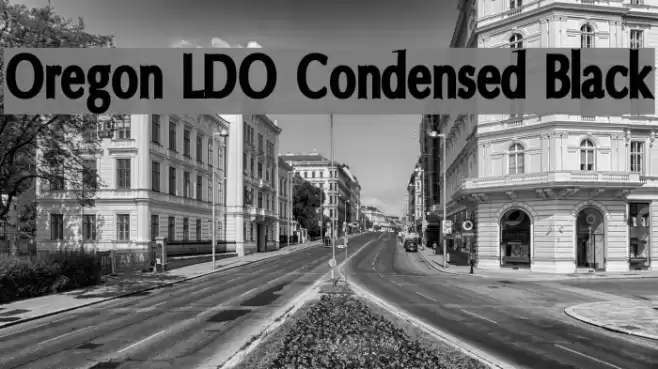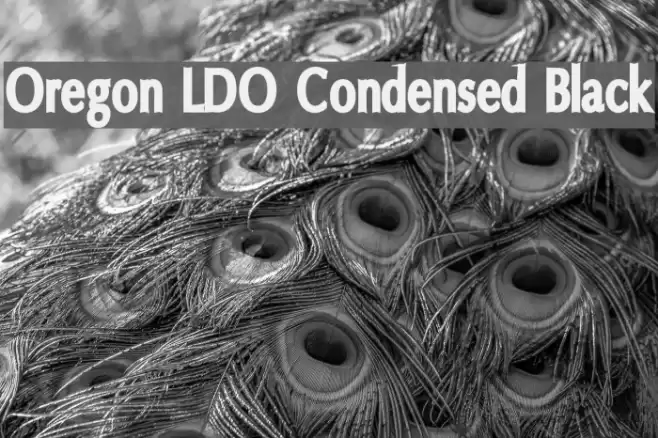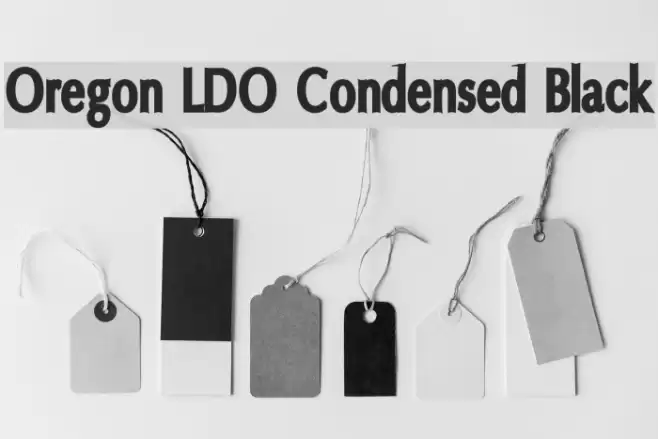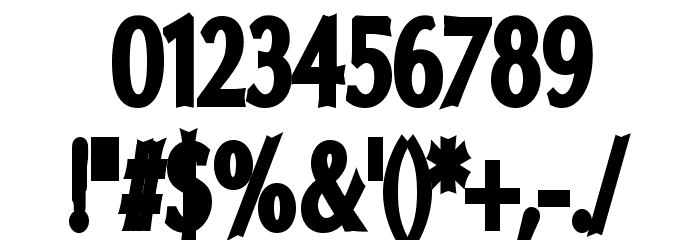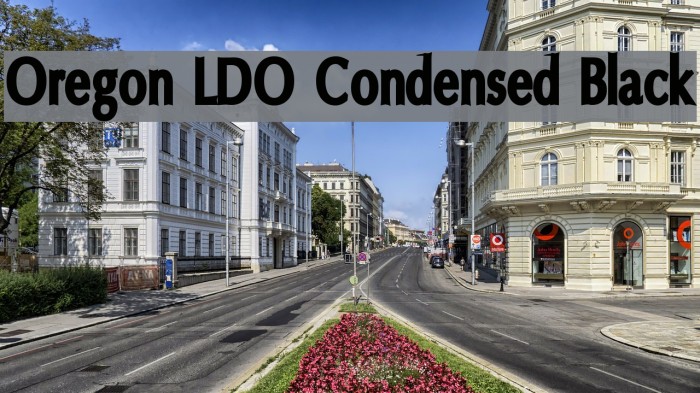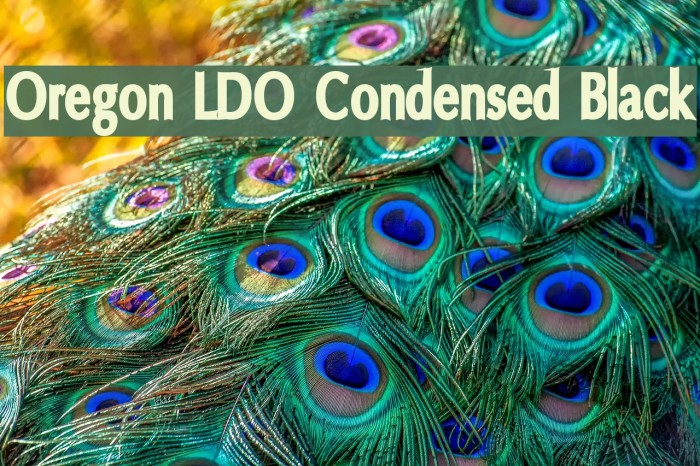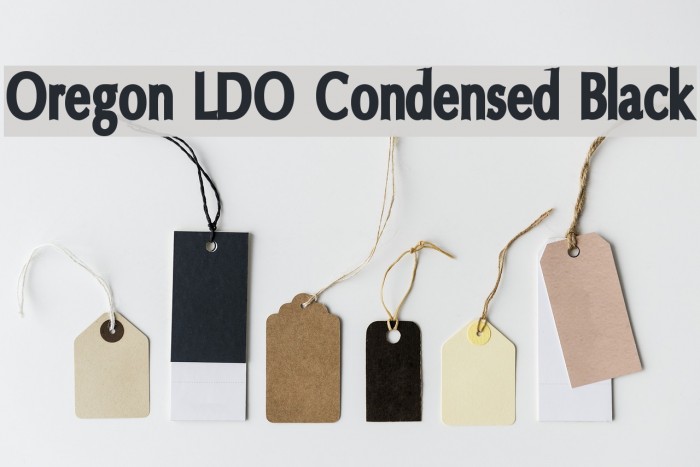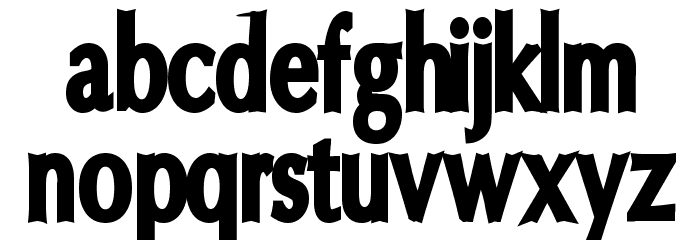
Oregon LDO Condensed Black Font
Oregon LDO Condensed Black Description
This font features bold, condensed letterforms with a strong presence. The uppercase and lowercase characters are designed with a consistent thickness, creating a uniform appearance. The numbers are equally bold, maintaining the font's robust style. Special characters are crafted with the same attention to detail, ensuring they integrate seamlessly with the rest of the typeface. The overall design is modern and impactful, making it suitable for attention-grabbing headlines and titles. Its condensed nature allows for efficient use of space, making it ideal for projects where space is limited but impact is necessary.
A bold, condensed font with a modern and impactful style from Uncategorized fonts.
- Proposed Projects: Ideal for headlines, posters, branding, and any project requiring a strong visual impact.
- Character Spacing: Tight